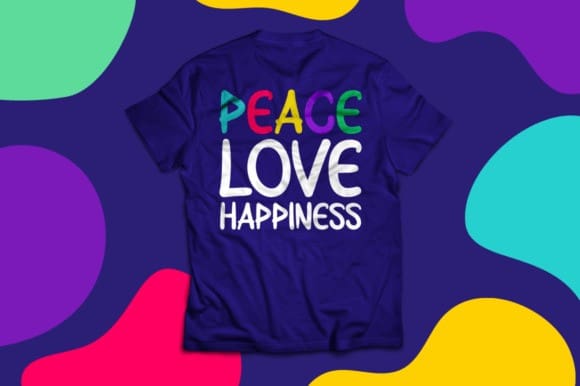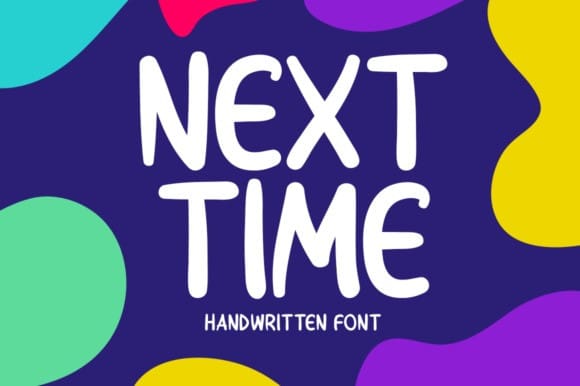
Next Time Font
Next Time Font is an incomparable and simple display font. It can easily be matched to an incredibly large set of projects, so add it to your creative ideas and notice how it makes them stand out!